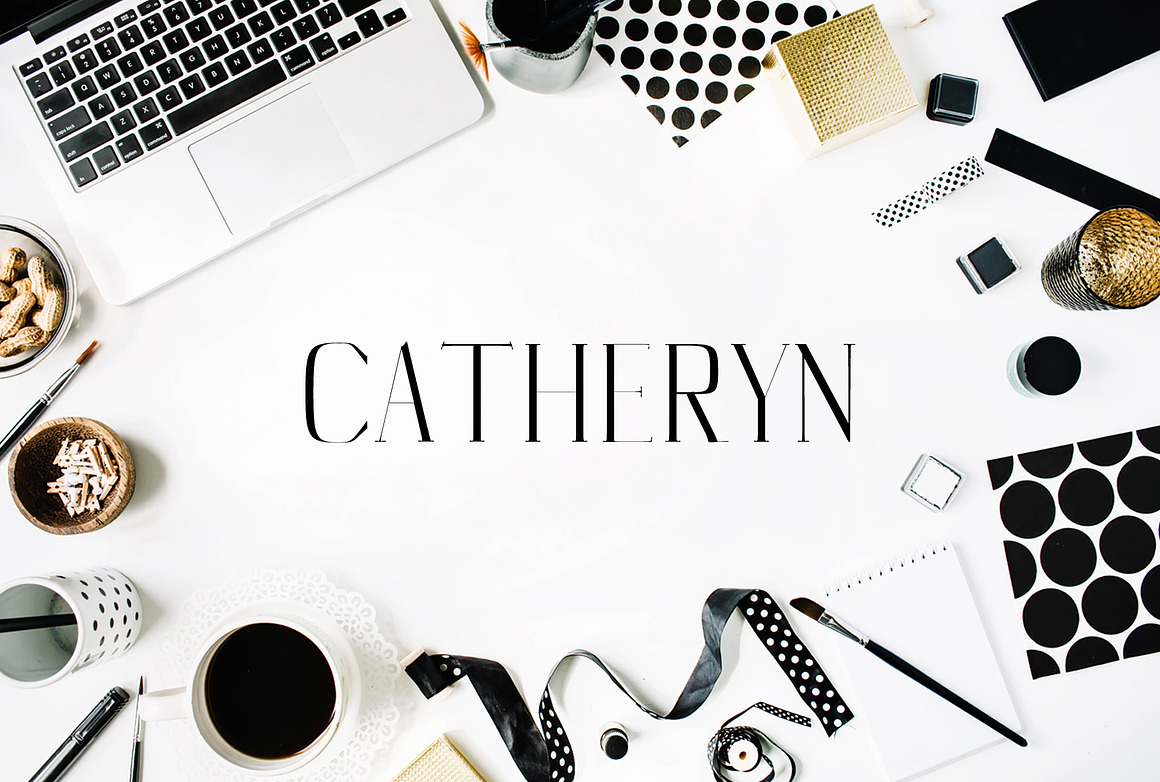
Catheryn Serif 4 Font Family Pack
This sophisticated serif typeface pack is perfect for literary publications, academic journals, luxury book covers, elegant editorial layouts, premium brand identities, classical wedding invitations, museum catalogs, and refined corporate communications. Catheryn Serif 4 Font Family Pack delivers exceptional performance in applications where intellectual sophistication and timeless elegance are paramount.
What makes Catheryn Serif 4 Font Family Pack so exciting is its masterful interpretation of classical typography principles with contemporary refinement. The font features beautifully proportioned letterforms with graceful serifs that enhance readability while adding distinctive character. Each glyph demonstrates meticulous attention to detail, with carefully balanced contrast and elegant curves that create a harmonious reading experience. The pack's versatile design philosophy seamlessly bridges traditional and modern aesthetics, making it perfect for brands and publications that value both heritage and innovation in their visual communication.
The Catheryn Serif 4 Font Family Pack includes four essential weights: Light, Regular, Medium, and Bold. This carefully curated selection provides designers with optimal flexibility for creating sophisticated typographic hierarchies and maintaining visual consistency across complex design systems. Each weight preserves the family's inherent elegance while offering distinct personality traits for various applications and emphasis levels.
Whether you're crafting prestigious editorial content, developing cultural institution branding, or designing luxury product catalogs, Catheryn Serif 4 Font Family Pack Free Download offers the refined aesthetic that discerning audiences expect. Its classical foundation makes it particularly suitable for educational institutions, publishing houses, luxury brands, and cultural organizations. The font pack's exceptional legibility ensures comfortable reading experiences in both extended text applications and impactful display settings, while its timeless character creates lasting brand recognition.
This distinguished serif collection embodies the perfect marriage of traditional craftsmanship and contemporary design excellence for sophisticated typography solutions.